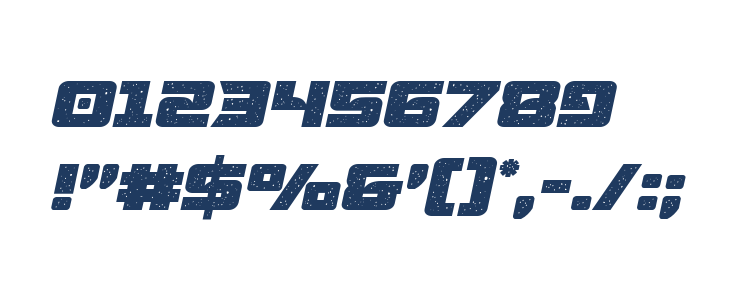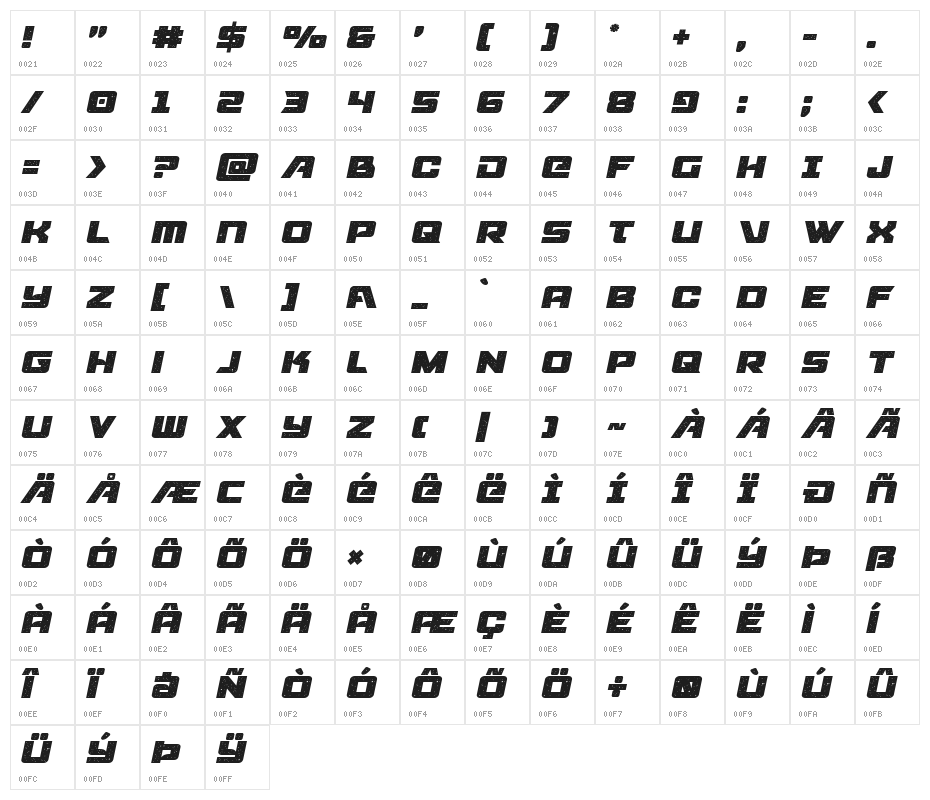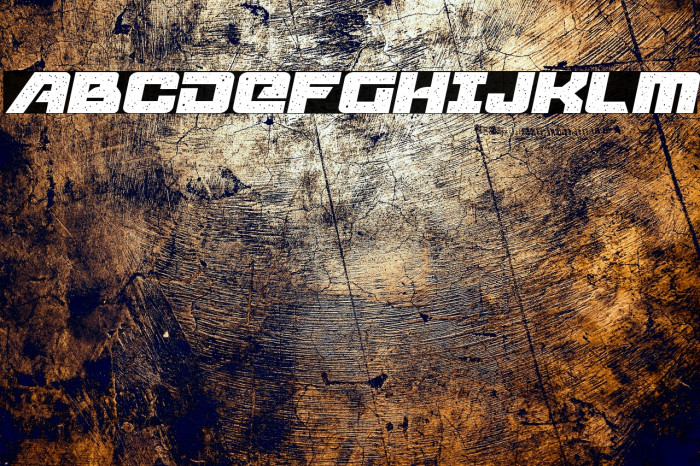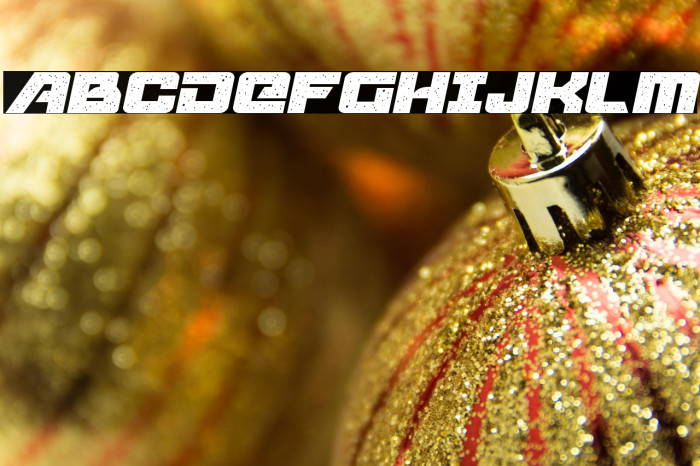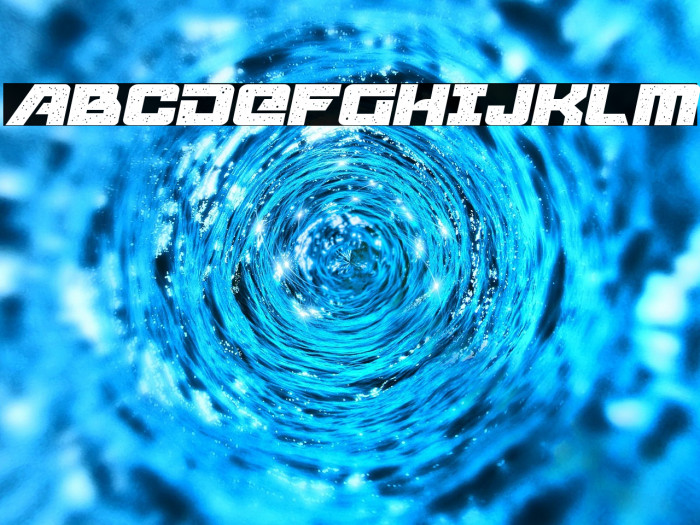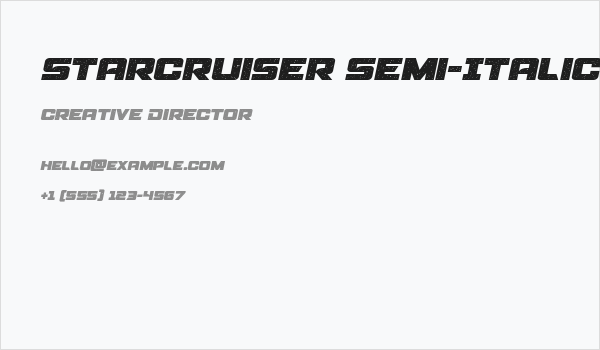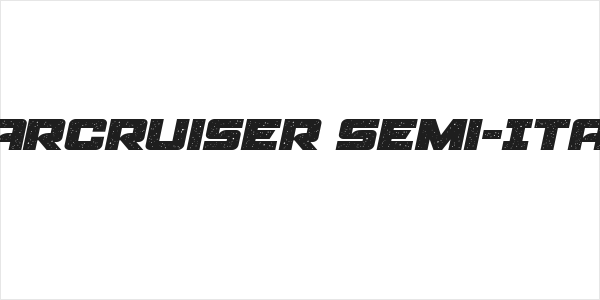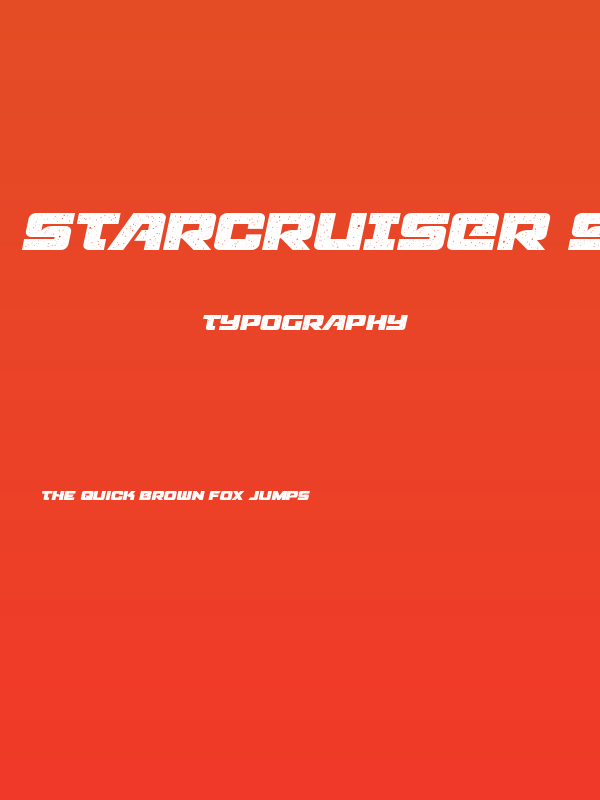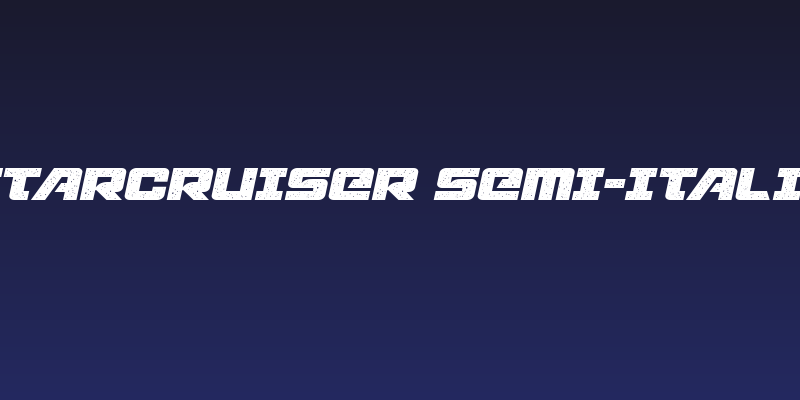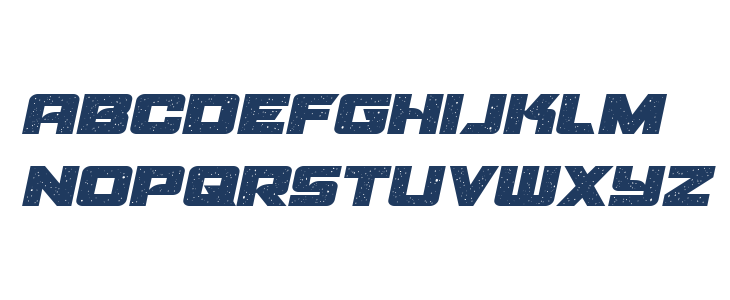
Starcruiser Semi-Italic Font
Starcruiser Semi-Italic Description
This font features a futuristic and dynamic design, characterized by its semi-italic style and bold appearance. The letters are slightly slanted, giving a sense of motion and speed. Each character is filled with a starry pattern, adding a unique and cosmic touch. The font maintains a consistent thickness throughout, with rounded edges that soften its overall look. The characters are well-spaced, ensuring readability while maintaining a compact form. This font is ideal for projects that require a modern and adventurous aesthetic.